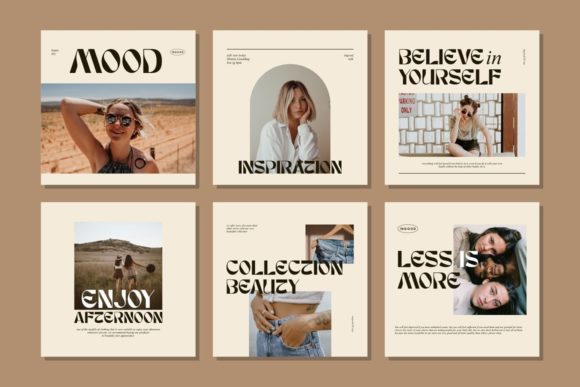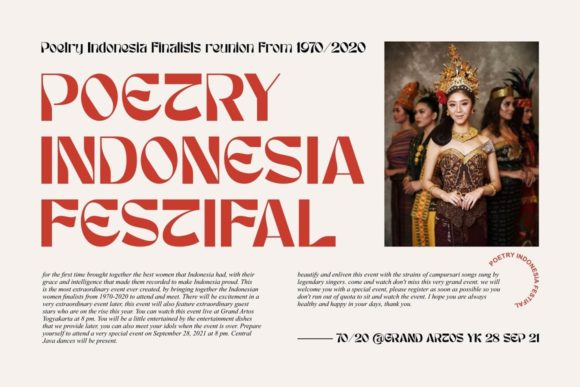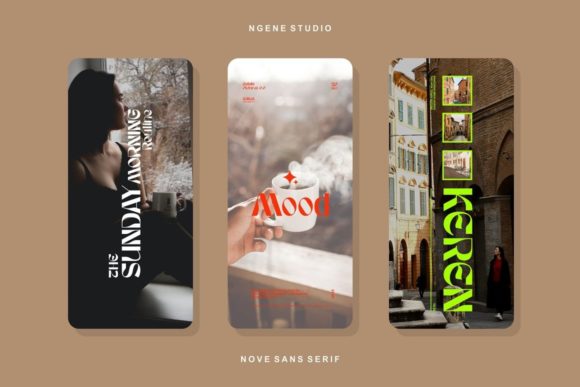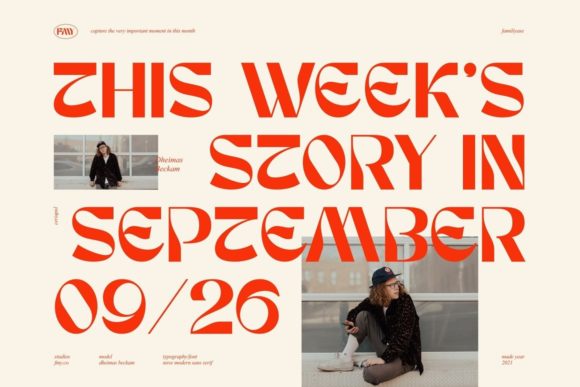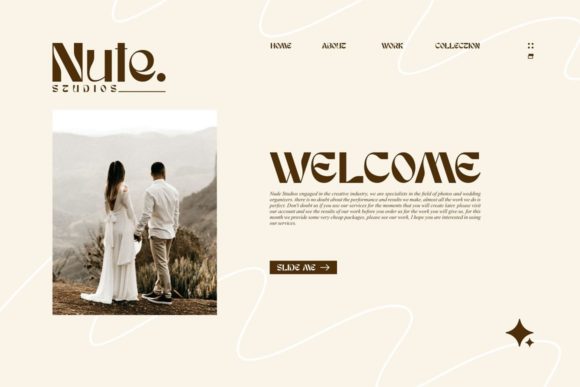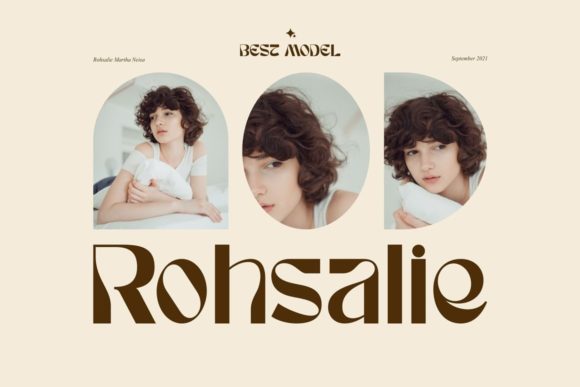
Introduction to Nove Font
Nove is a cool and distinct display font.
Nove Font offers exceptional quality and versatility, making it a valuable addition to your design toolkit. Whether you’re creating for personal projects or commercial use, Nove Font delivers professional results.